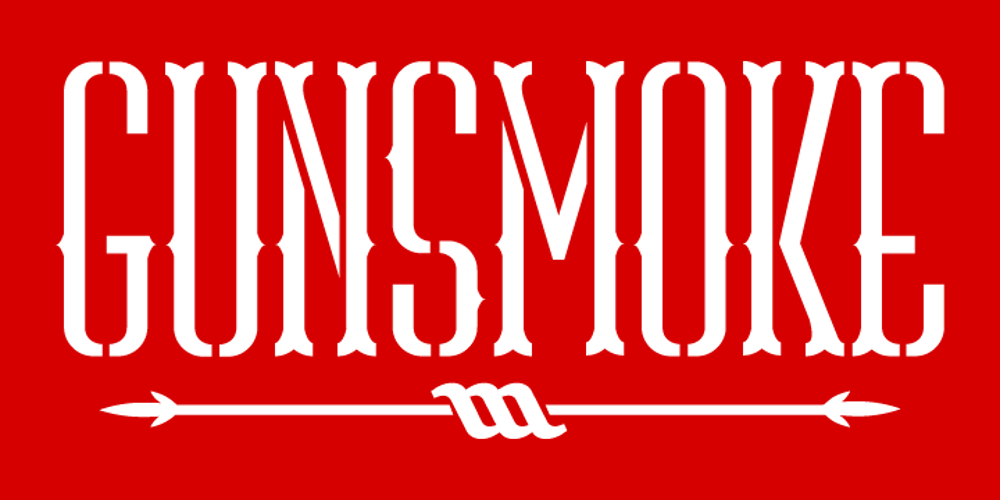
ABTS Gunsmoke Font Family was designed by Jay Hilgert and published by Albatross. ABTS Gunsmoke contains 1 styles and family package options. ABTS Gunsmoke is a typeface inspired by the wild west of American History. It is a narrow typeface with a nice rhythm and balance, allowing for easy typesetting. Gunsmoke includes 447 characters, including all of the symbols seen in the gallery images.